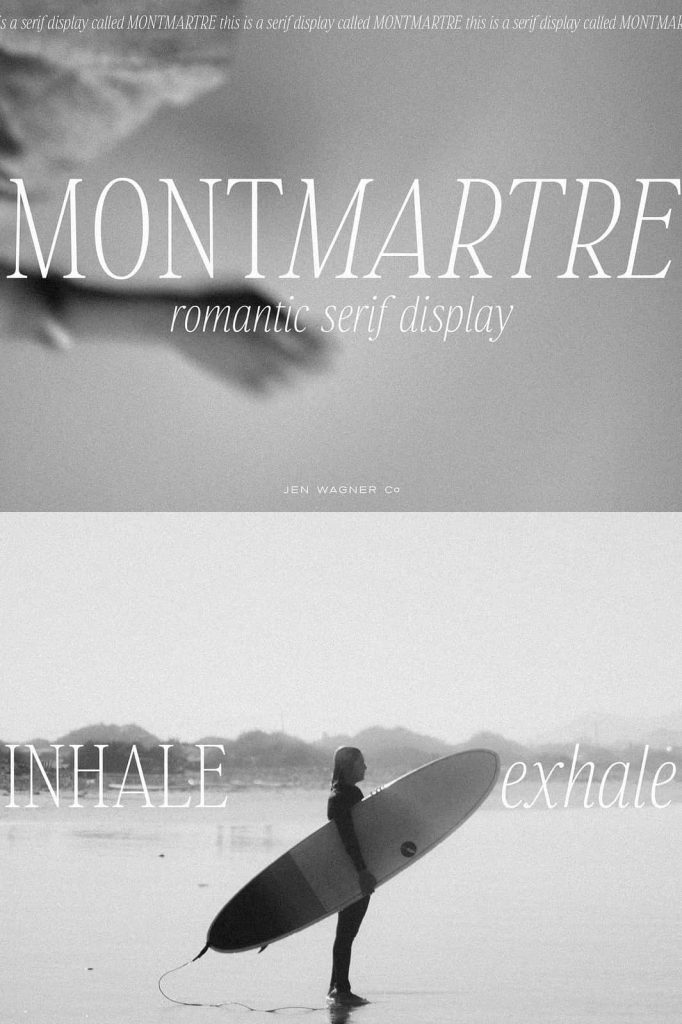
Montmartre Font: A Perfect Harmony of Elegance and Purpose
Montmartre was thoughtfully created for both graphic designers and business owners who seek a font that delivers beauty, clarity, and impact in every project. This typeface stands as a reliable creative partner, crafted to elevate visual communication through refined letterforms and balanced proportions. Whether you are designing inspirational quotes, building a memorable logo, or shaping a complete brand identity, Montmartre offers a seamless and professional solution.
Designed for Designers and Business Owners Alike
Montmartre bridges the gap between creative expression and commercial usability. Graphic designers appreciate its aesthetic consistency and versatility, while business owners value its ability to communicate professionalism and trust. The font was designed to work effortlessly across different platforms, ensuring that your message remains strong whether it appears on digital screens, printed materials, or large-scale branding assets.
By combining artistic sensibility with practical design principles, Montmartre allows users to focus on storytelling rather than technical limitations. Every character was shaped to maintain readability while preserving a sophisticated visual rhythm.
Perfect for Quotes, Logos, and Branding
One of Montmartre’s strongest qualities lies in its adaptability. The font excels in quote designs, where clarity and emotional impact must coexist. Its elegant structure enhances the meaning of words, making inspirational messages feel more intentional and visually engaging.
When used in logo design, Montmartre delivers a distinctive identity without overpowering the brand’s message. The font supports a wide range of industries, from creative studios and fashion brands to cafés, boutiques, and professional services. Its timeless appearance ensures that logos remain relevant long after design trends fade.
A Font That Brings Visual Balance
Montmartre was crafted with careful attention to spacing, weight, and form. These design choices create harmony between letters, allowing words to flow naturally. This balance makes the font easy to pair with other typefaces, giving designers greater flexibility when building layouts and brand systems.
The consistent stroke contrast and smooth curves help maintain a polished look across different font sizes. Whether used for headlines or short statements, Montmartre preserves its character and elegance.
Effortless Integration Into Creative Workflows
Montmartre integrates smoothly into modern design workflows. It works well with popular design software and supports a variety of creative applications. Designers can confidently apply it to social media graphics, websites, packaging, posters, and marketing materials without worrying about visual inconsistency.
For business owners, Montmartre simplifies branding decisions. A single, well-chosen font can unify marketing assets and strengthen brand recognition. Montmartre fulfills this role by offering a clean yet expressive style that adapts to multiple business needs.
Timeless Style With Modern Appeal
Rather than following short-lived trends, Montmartre embraces a timeless design philosophy. Its classic elegance ensures longevity, while subtle modern touches keep it relevant in contemporary design contexts. This balance makes the font a valuable long-term asset for brands that want consistency and growth.
Montmartre does more than display text. It shapes perception, reinforces identity, and supports meaningful communication. By choosing Montmartre, designers and business owners gain a font that works hard behind the scenes while delivering a refined visual presence.
Why Choose Montmartre Font
Montmartre stands out as a dependable and stylish typeface for anyone who values quality design. It empowers creativity, enhances professionalism, and brings ideas together effortlessly. From elegant quotes to confident logos, Montmartre helps transform simple words into compelling visual statements.